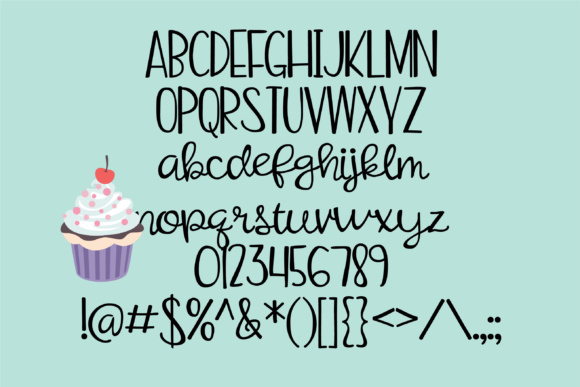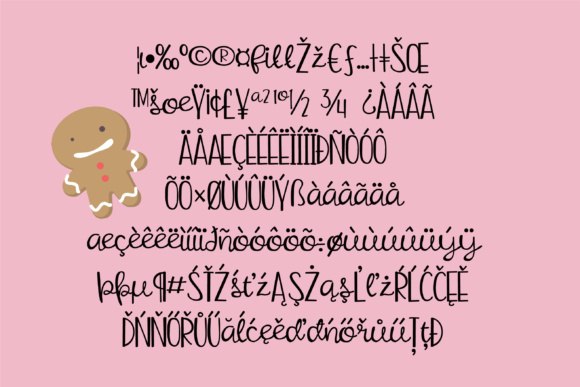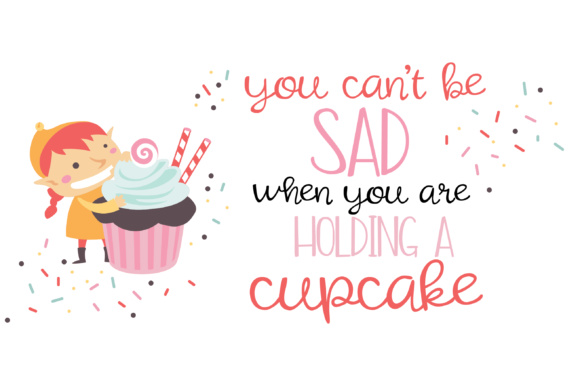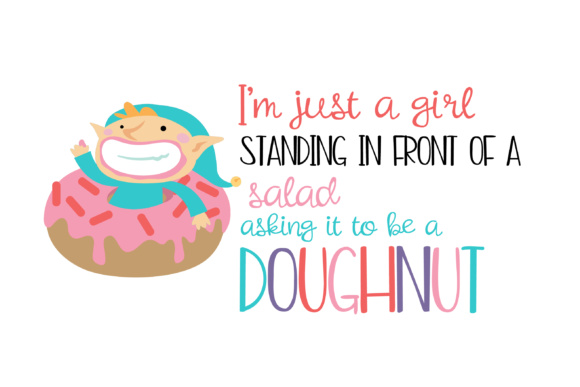
Shugarpie Honeybunch Font
About Shugarpie Honeybunch Font
This font-duo in one font has an uppercase that looks great when used alone and the lowercase is an adorable script.